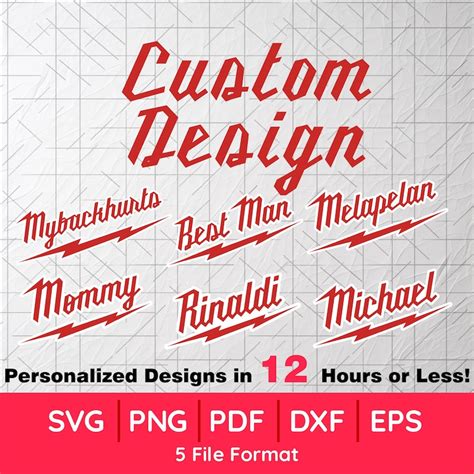
Milwaukee Tools Font. This complete typeface includes accents,. Web ut nickel is a geometric script font inspired by the milwaukee tool company logo.
Web ut nickel is a geometric script font inspired by the milwaukee tool company logo. The time is now 12:18. This complete typeface includes accents,.
Web ut nickel is a geometric script font inspired by the milwaukee tool company logo. Web ut nickel is a geometric script font inspired by the milwaukee tool company logo. The time is now 12:18. This complete typeface includes accents,.